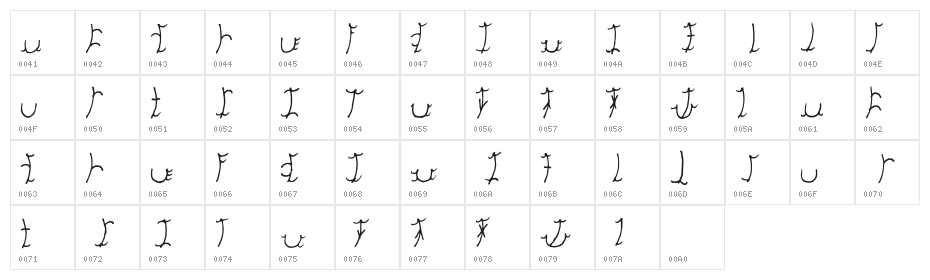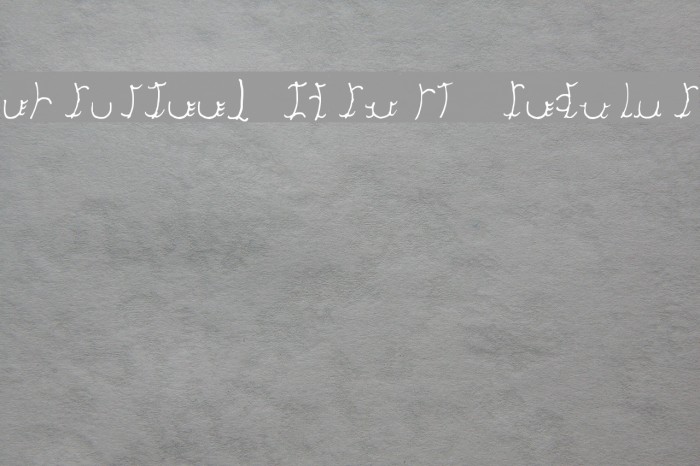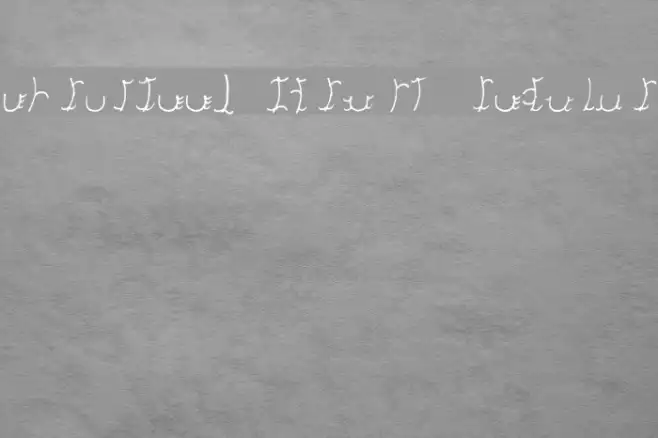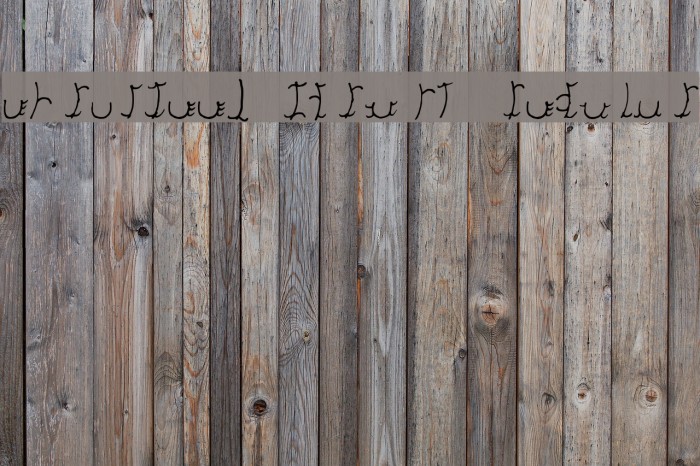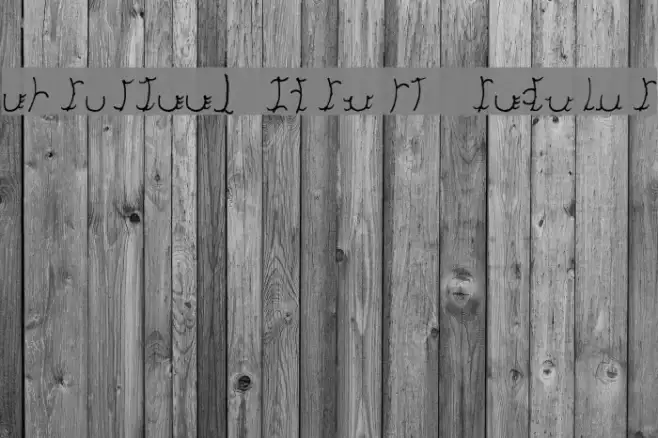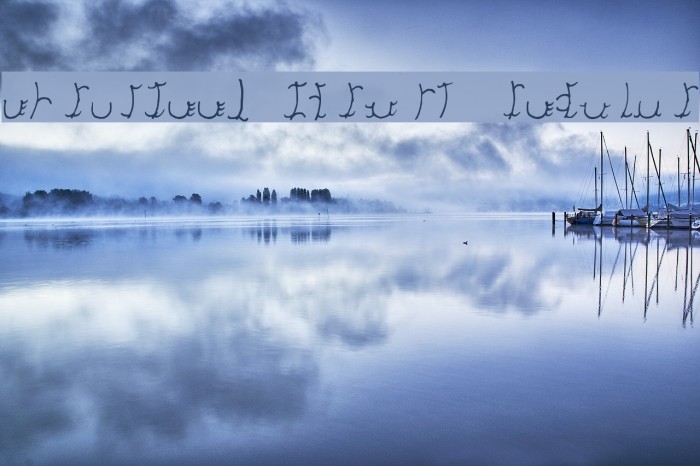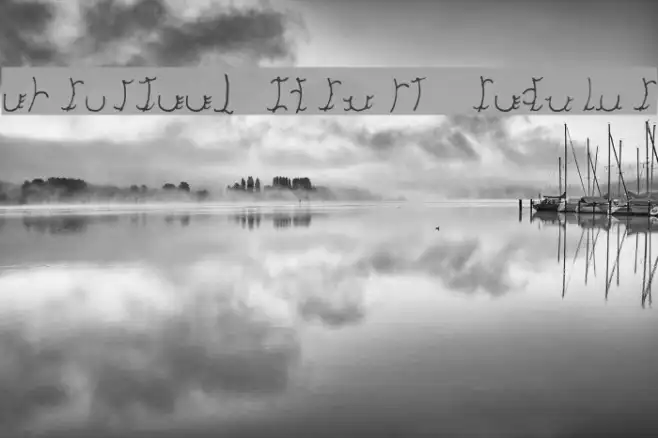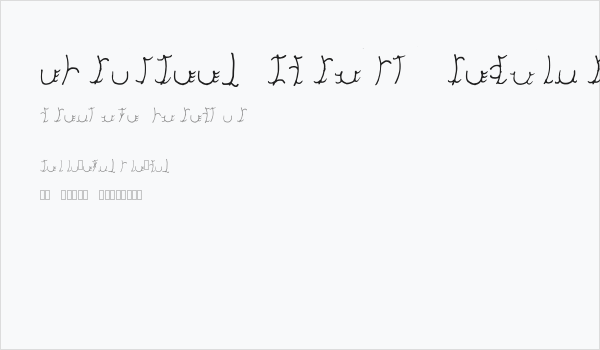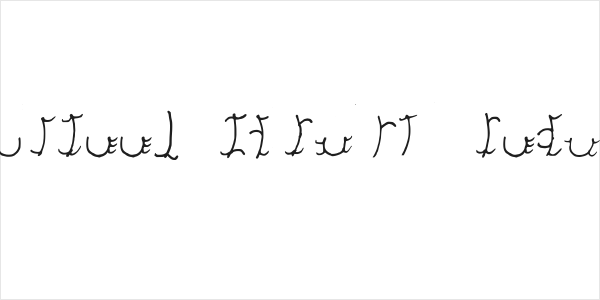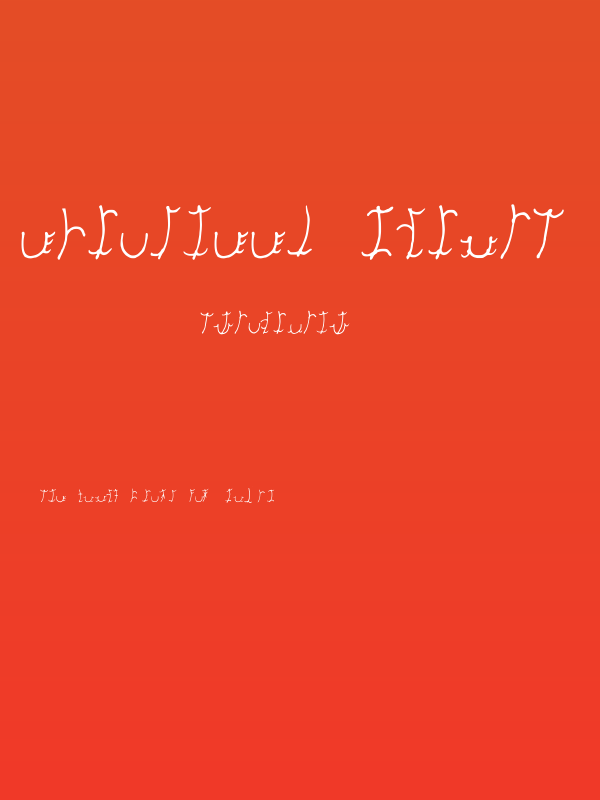
Edronheem Script Regular Font
Edronheem Script Regular Description
This font features a unique and artistic script style with a whimsical flair. The characters are elegantly curved with a flowing, handwritten appearance that adds a personal touch. Each letter is distinct, with varying stroke thickness that gives it a dynamic and lively feel. The uppercase letters are bold and prominent, while the lowercase letters maintain a delicate balance, offering a harmonious blend. The numerals and special characters are crafted with the same attention to detail, ensuring consistency throughout the font. This script is perfect for creative projects that require a touch of elegance and individuality.